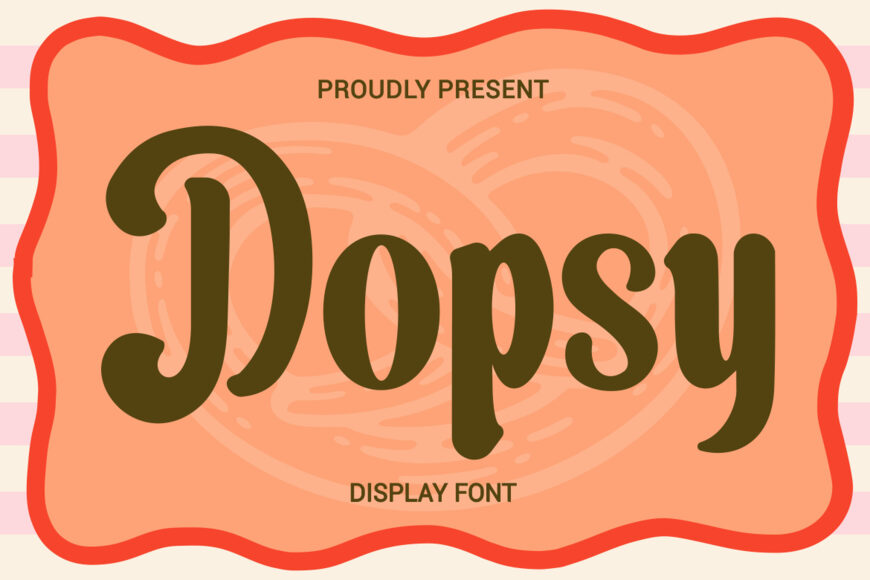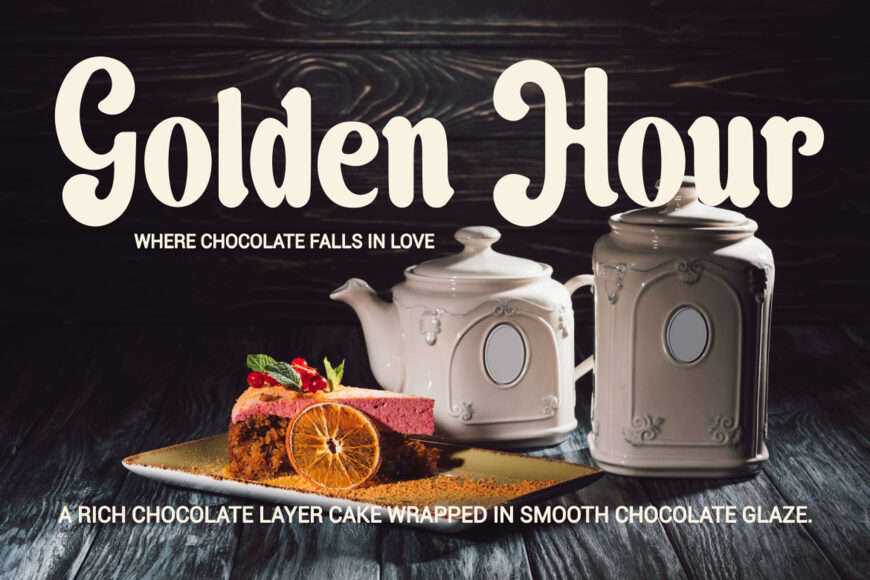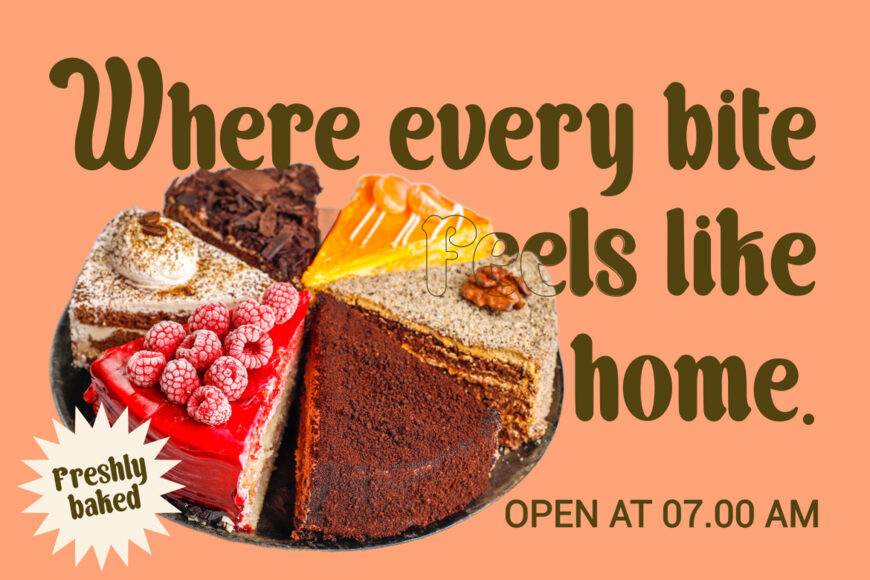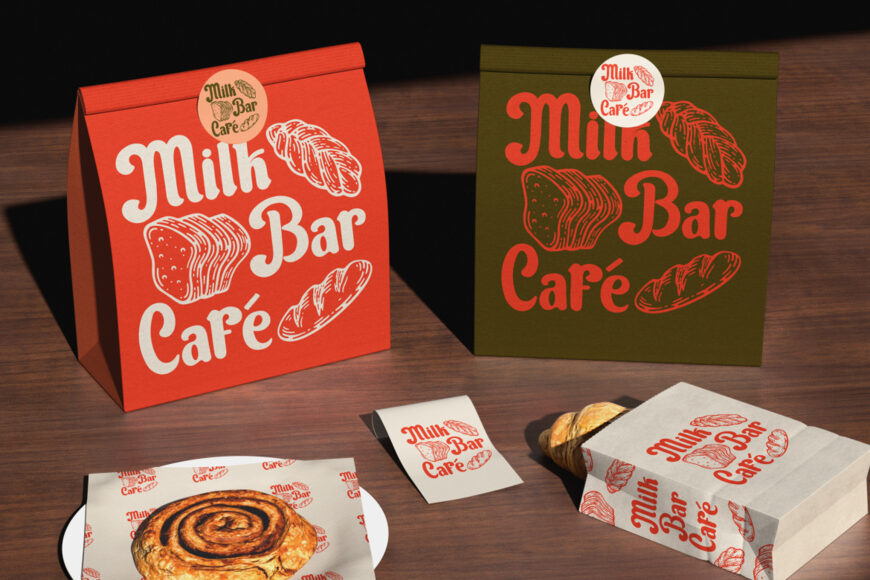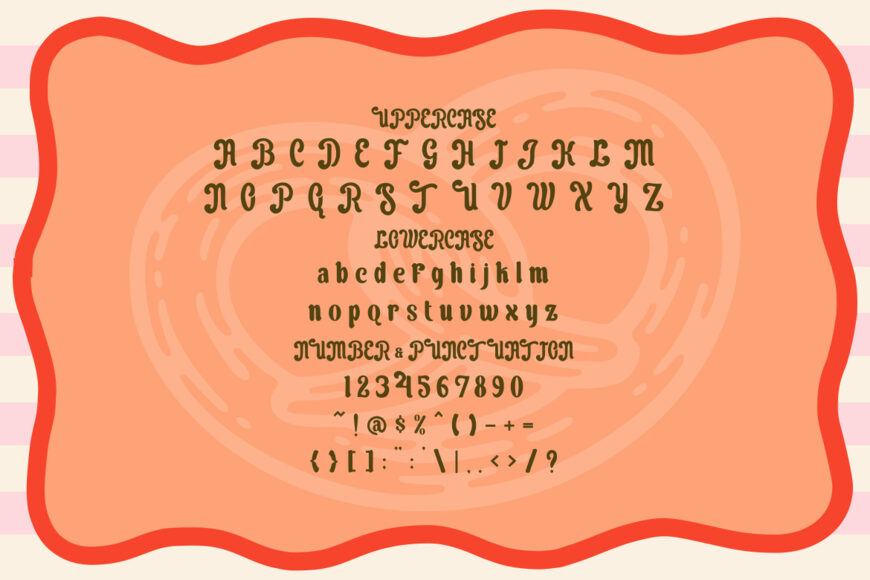
Dopsy Font
Dopsy, a Retro Display Font, presents bold rounded letterforms with a soft vintage character. The strokes appear thick and consistent, creating strong visual weight for headlines. Each character features smooth curves with slightly condensed proportions and compact spacing.
The structure feels stable, yet playful, with subtle irregularity that adds personality. Counters are wide enough to maintain readability at larger sizes. This font blends retro signage influence with modern display clarity. The overall style feels nostalgic, friendly, and expressive, making it effective for standout typography.